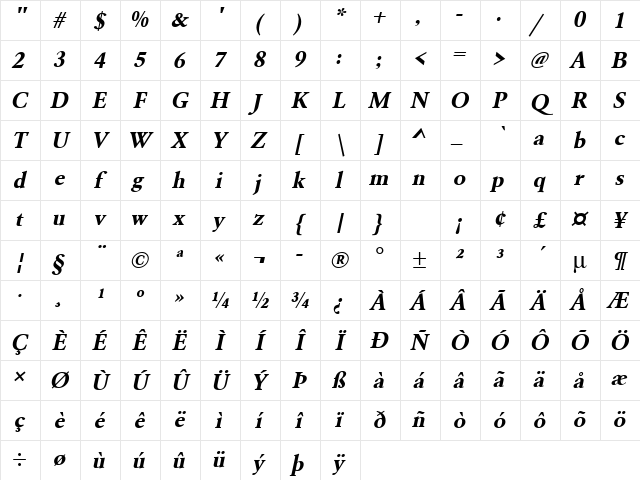
URWGaramondT Bold Oblique
Style: Bold Oblique
Design Context for URWGaramondT
URWGaramondT is a composed and adaptable typeface that performs quietly and consistently across a wide range of design contexts. The slanted form adds forward momentum and visual energy. Its bold stroke weight gives it real presence on the page.